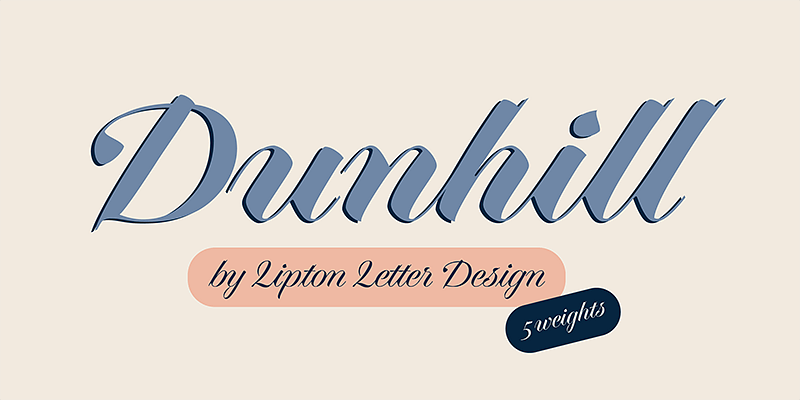
Dunhill Script Font Free Download is an elegant and luxurious script typeface that evokes the charm of classic handwritten lettering. With its graceful swashes, flowing curves, and refined detailing, this font is perfect for wedding invitations, upscale branding, packaging design, and any project that calls for a sophisticated, personal touch.
Its high-contrast strokes and smooth connections make Dunhill Script both stylish and legible, whether used in print or on screen. Fully compatible with design software like Adobe Illustrator, Photoshop, and Canva, it offers designers flexibility and elegance in every character.